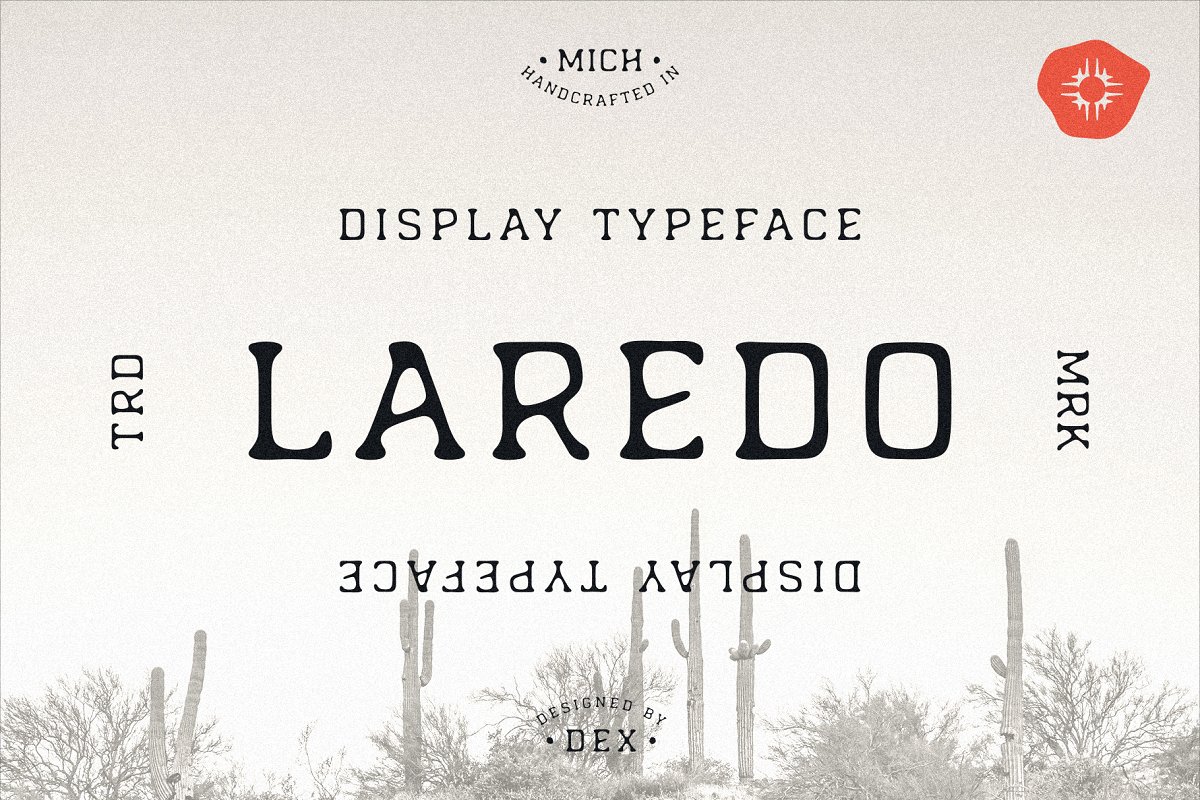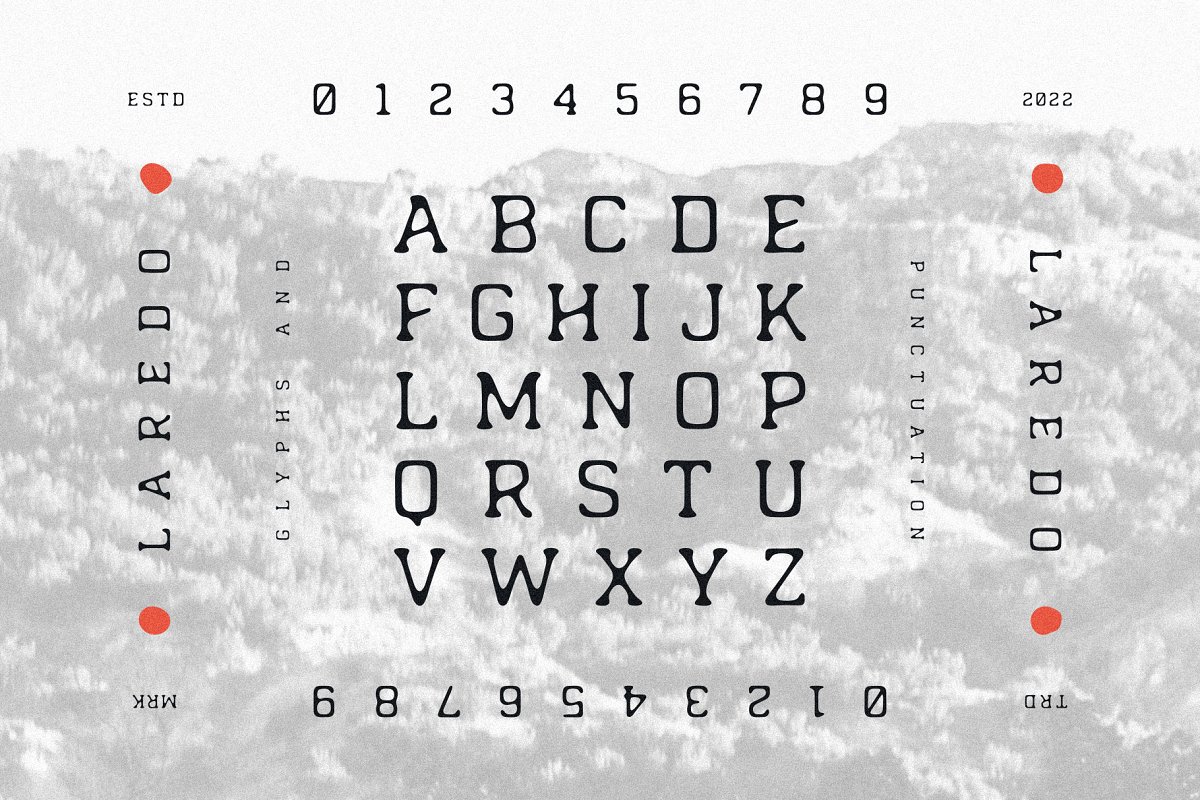
About the Laredo Typeface Font
Laredo is a handcrafted all-caps typeface inspired by the rugged land of the American Southwest, From decaying motel signs to the red rocks worn smooth from everlasting erosion, This is the land from which Laredo was born, Product Content:Laredo, otfFollow me on www, instagram, com/designsbydex/